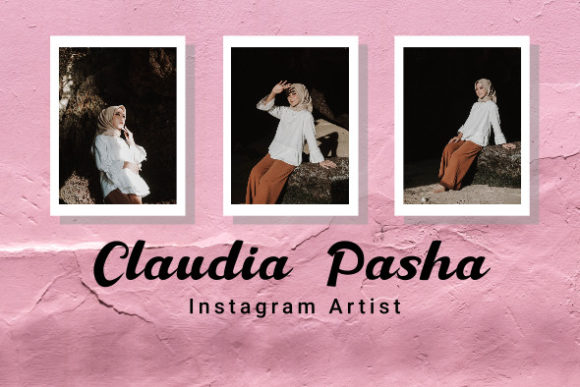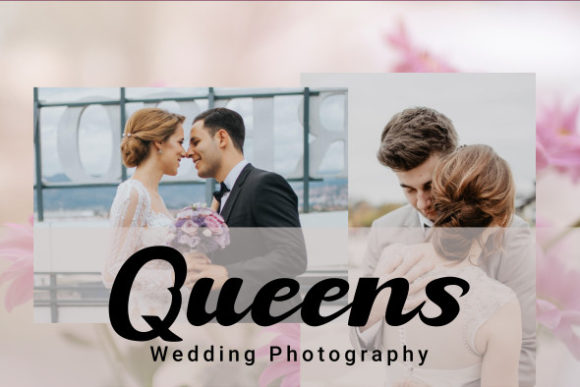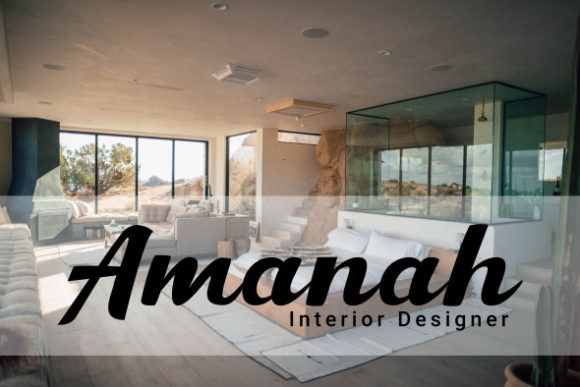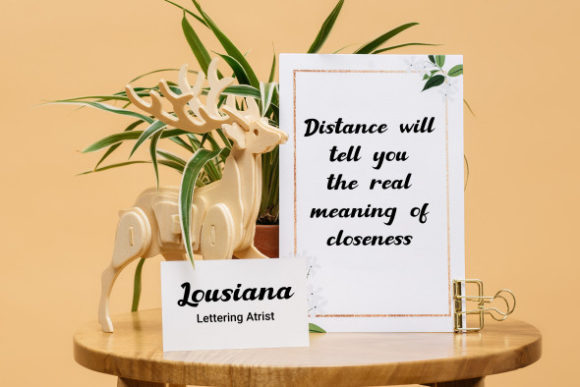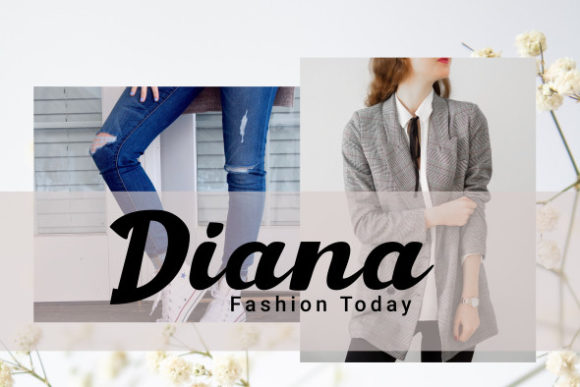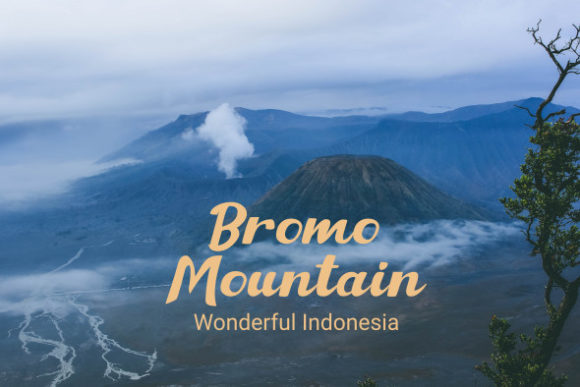
Introduction to Rianty Font
As a designer, there’s nothing quite like the thrill of discovering a new font that sparks inspiration for your next creative project. For me, that moment came when I stumbled upon the Rianty Font – an elegant and dainty handwritten font that features sweet and delicate swashes. Its original look immediately caught my attention, and I knew I had to dive in and explore its full potential.
With the Rianty Font, designers can add a touch of whimsy and sophistication to their designs, making it the perfect addition to any project. Whether you’re working on a letterhead, title, or stationery, this font is sure to bring a level of elegance and refinement that’s hard to find with other design resources.
What sets the Rianty Font apart is its high-quality design, which features a transparent background and a range of customizable options. Plus, it’s available as a free download, making it a valuable resource for designers of all levels.
Key Features of Rianty Font
- High-quality font design for creative projects: Rianty Font is a versatile and modern font suitable for various design needs, including branding, advertising, and digital media.
- Transparent background: The font features a transparent background, allowing designers to easily combine it with other design elements and achieve a seamless look.
- Unique characteristics: Rianty Font features a unique blend of modern and vintage elements, making it an excellent choice for designers who want to add a touch of sophistication to their creative projects.
Honest Review: Rianty Font
As a designer, I’m always on the lookout for high-quality design resources to elevate my creative projects. The Rianty Font is a free download that caught my attention, and I’m excited to share my honest review.
Here’s what works well: ✨ The Rianty Font has a unique and elegant design that’s perfect for modern branding and typography projects. It’s also highly legible, making it an excellent choice for body text or titles. The font is available in a range of weights, from light to bold, giving designers flexibility in their design choices.
The font also features a transparent background, which is a nice touch for designers who want to create a seamless look.
- Unique and elegant design
- Highly legible
- Available in a range of weights
However, there are a few limitations: ⚠️ The font may not be suitable for older systems, as it requires a more modern font rendering engine. Additionally, some designers may find the font too simplistic for more complex design projects.
Overall, I think the Rianty Font is a great addition to any designer’s toolkit. It’s a high-quality resource that’s perfect for creative projects where a modern and elegant look is required.
Tips for Getting the Most Out of Rianty Font
To get the most out of Rianty Font, experiment with different font sizes, colors, and combinations to create a unique look. You can also use the font in conjunction with other design elements, such as graphics and images, to create a visually appealing design.
Rianty Font is suitable for a variety of creative projects, including logos, brochures, business cards, and social media graphics. Its high-quality design and transparent background make it an ideal choice for designers and non-designers alike.